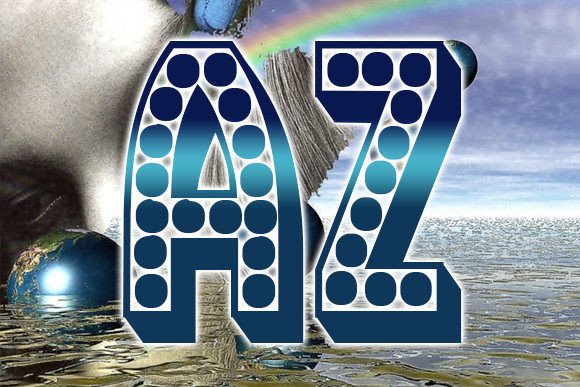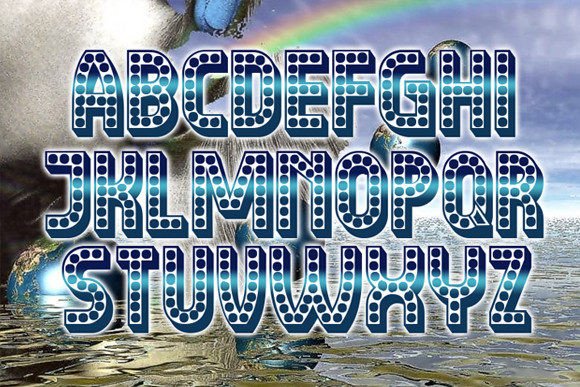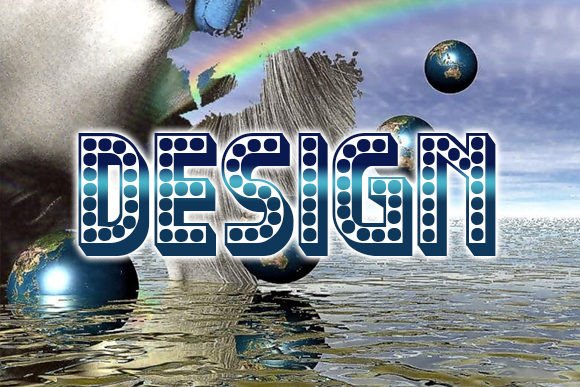
Introducing Freelancer Font: The Ultimate Retro 3D Typeface for Your Designs
Are you a designer or crafter looking for a unique and creative font to elevate your projects? Look no further than the Freelancer Font, an awesome retro 3D typeface that’s perfect for making a statement. With its bold and eye-catching design, this font is sure to grab attention and leave a lasting impression.
What is Freelancer Font?
Freelancer Font is a display font that’s specifically designed to add a touch of nostalgia and retro flair to your designs. Its 3D effect gives it a distinctive look that’s reminiscent of classic posters and advertisements from the 80s and 90s. Whether you’re working on a poster, flyer, t-shirt, or any other project, this font is sure to make it stand out.
Key Features of Freelancer Font
- Retro 3D Effect: The Freelancer Font features a bold and eye-catching 3D effect that gives it a unique and nostalgic look.
- High-Quality Design: The font is designed with high-quality vectors that ensure it looks great at any size.
- Versatile: The Freelancer Font is perfect for a wide range of projects, from posters and flyers to t-shirts and more.
Inspiration for Your Designs
The Freelancer Font is perfect for a wide range of design projects, including:
- Posters: Create eye-catching posters for events, concerts, or promotions.
- Flyers: Design flyers for businesses, services, or products.
- T-Shirts: Create custom t-shirts with bold and eye-catching designs.
- Logos: Use the Freelancer Font to create unique and memorable logos for businesses or brands.
Why Choose Freelancer Font?
There are many fonts available online, but the Freelancer Font stands out from the rest. Here are just a few reasons why:
- Unique Design: The Freelancer Font features a unique and eye-catching design that’s sure to grab attention.
- High-Quality: The font is designed with high-quality vectors that ensure it looks great at any size.
If you’re looking for a unique and creative font to elevate your designs, look no further than the Freelancer Font. With its bold and eye-catching 3D effect, this font is sure to make a statement. Whether you’re working on a poster, flyer, t-shirt, or any other project, the Freelancer Font is the perfect choice.